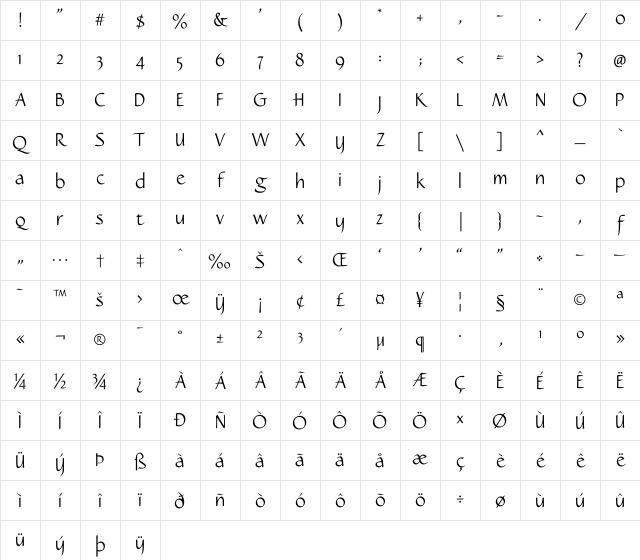
Caterina Light
Design Context for Caterina
Caterina is a composed and adaptable typeface that performs quietly and consistently across a wide range of design contexts. Its slender proportions lend an understated elegance to any composition.